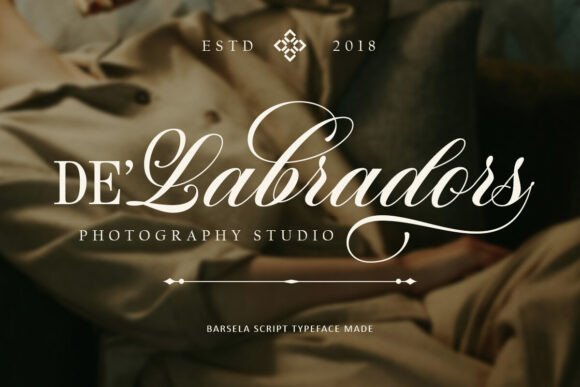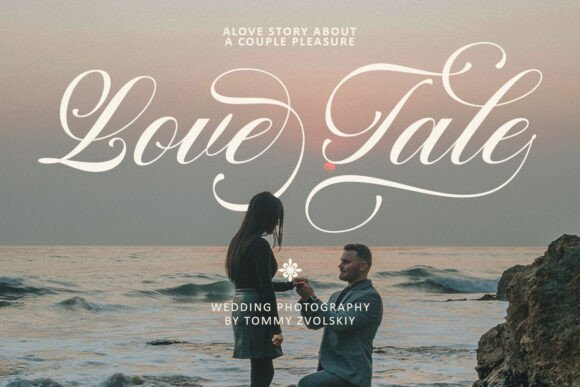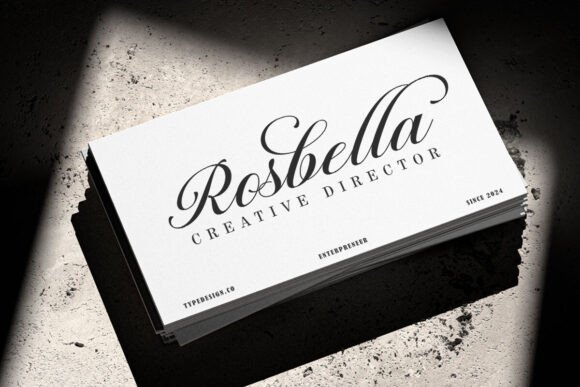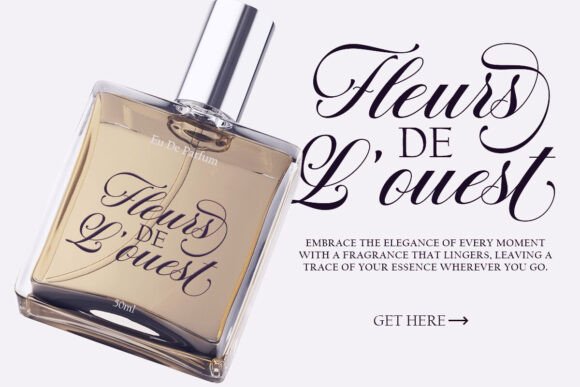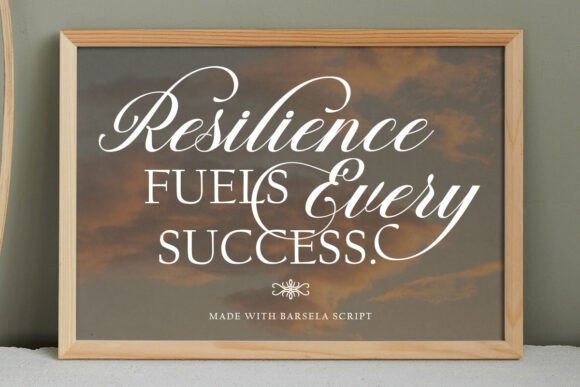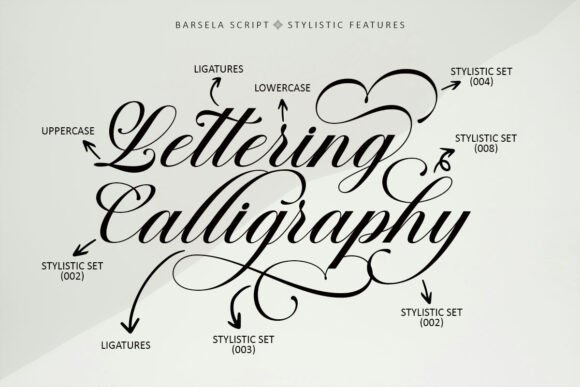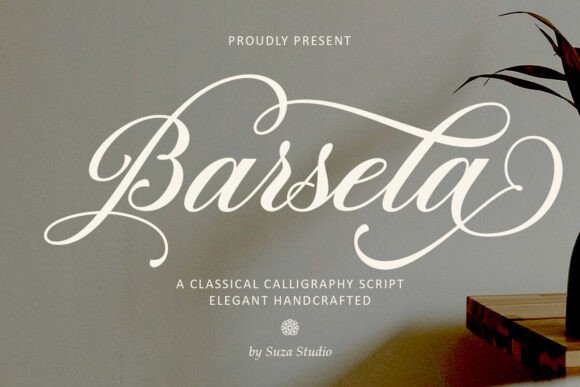
Unleashing the Art of Elegant Typography
Have you ever stumbled upon a beautifully designed invitation or a romantic novel, and felt an instant urge to create something equally stunning? That’s exactly what happens when you’re struck by the beauty of elegant typography. For designers, finding the perfect font to convey a message or evoke a mood is a constant quest. That’s where the Barsela Calligraphy Font comes in – a beautifully styled calligraphy script font designed to present an elegant and sophisticated style.
With its unique blend of copper calligraphy and hand-lettering, the Barsela Calligraphy Font is a valuable addition to any designer’s toolkit. Its smooth, clean, and feminine lines make it perfect for a wide range of applications, from formal invitations to romantic novels. Whether you’re a seasoned designer or just starting out, the Barsela Calligraphy Font is sure to inspire your creativity and elevate your designs to new heights.
Barsela Calligraphy Font Key Features
- Font Style: Elegant calligraphy font with a modern twist, ideal for creative projects and designs.
- Unique Characteristics: Unique ligatures, swashes, and flourishes that add a touch of sophistication and elegance to any design.
- Character Set: Includes a wide range of characters, including uppercase and lowercase letters, numbers, and punctuation marks.
Barsela Calligraphy Font Review
Overall, I think Barsela Calligraphy Font is a beautiful and elegant addition to any design project. ✨ The font’s flowing lines and classic feel make it perfect for creating a sophisticated and luxurious look. ✨ It’s great for use in wedding invitations, luxury branding, and any other project that requires a touch of elegance.
- ✨ Elegant and sophisticated design
- ✨ Classic feel that’s perfect for luxury branding
- ✨ Beautiful flowing lines that add to the font’s elegance
- ⚠️ Limited character set, which can be a problem for longer texts
- ⚠️ Not ideal for use in small font sizes, as the letters can become blurry
- ⚠️ May not be the best choice for projects that require a lot of bold text
Overall, I would recommend Barsela Calligraphy Font for projects that require a touch of elegance and sophistication. While it does have some limitations, I think the font’s beauty and classic feel make it a great choice for the right projects.
The Barsela Calligraphy font is perfect for:
Anniversary and birthday cards
Business branding and marketing materials
Artistic and creative projects